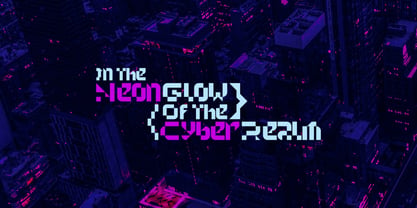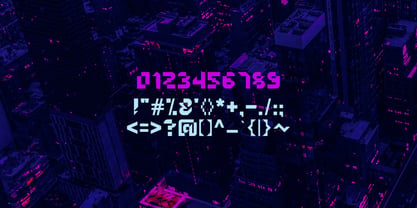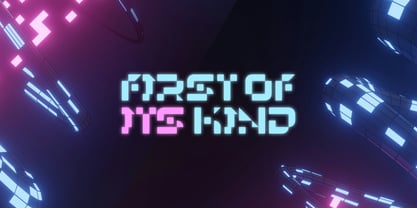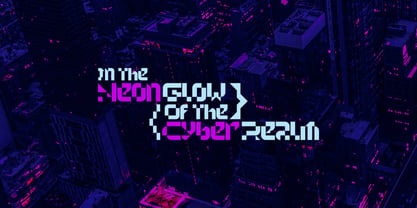
First Of Its Kind
by WildanN
The First Of Its Kind Font Family was designed by and published by WildanN. First Of Its Kind contains 1 styles. More about this family
"First Of Its Kind" is a geometric cyberpunk-style font features sleek, angular shapes and futuristic, tech-inspired designs and glitchy aesthetics.
With its geometric irregularities, fragmented, unconventional designs it will gives a feel of dystopian reality, gritty and futuristic, high-tech world with a rebellious edge giving off a bold, underground vibe.
Its visual presence ensures can be used effectively in logos tech startups, esports teams, or any brand looking to convey innovation and modernity, promotional materials that need a tech-inspired or dystopian aesthetic.